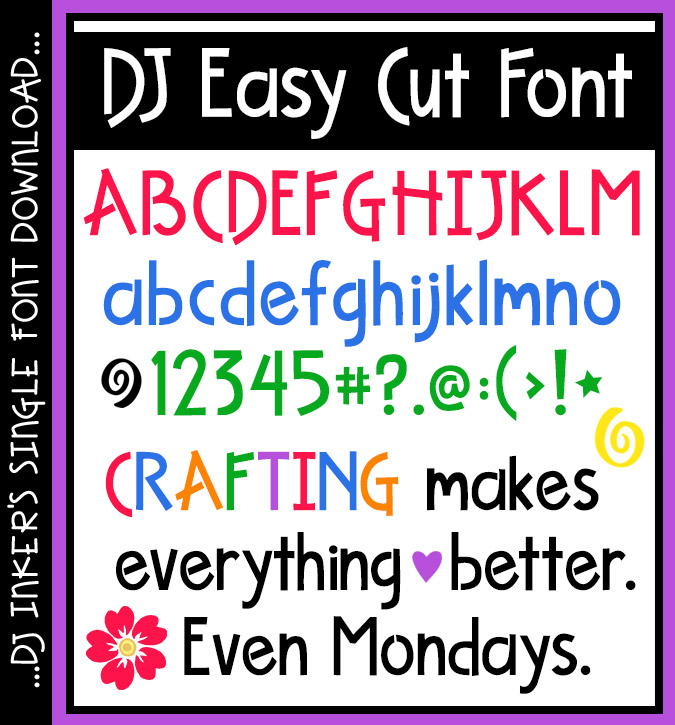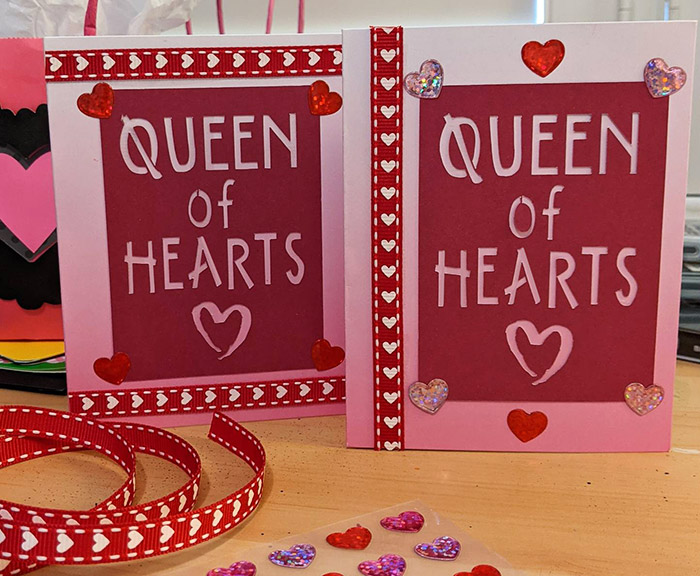
DJ Easy Cut Font Download
If you love to craft or play with your die cut machine, DJ Inkers has
got the font for YOU!
DJ Easy Cut will help you punch letters out smoothly and avoid
a big mess... because every letter is a single cut! Cutting, placing
and gluing your words has never been easier. Try it on your Cricut
or Silhouette machine today! (djdf164)